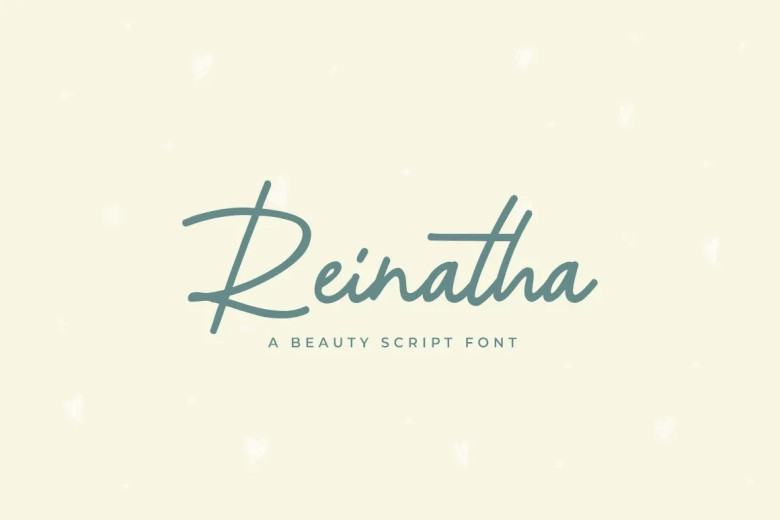
Reinatha Font
Reinatha is a monoline font with a difference­–its fresh, bold script breathes new meaning into creativity. This lively and refined reworking of the old-fashioned script opens up entirely fresh worlds of visual impact. When you take that fresh joy from Reinatha and pass it on persay with violating others’ content rights we’ll have redefined an entire design and moved reality around.
Reinatha Monoline Script Font